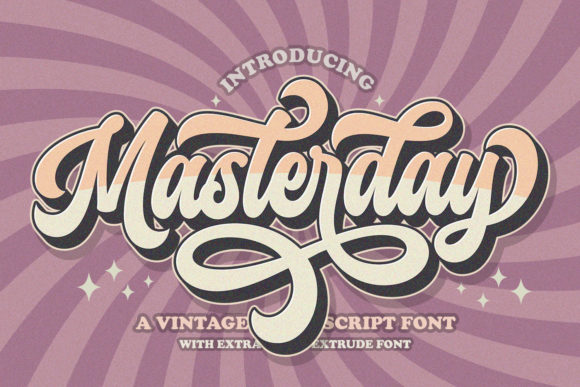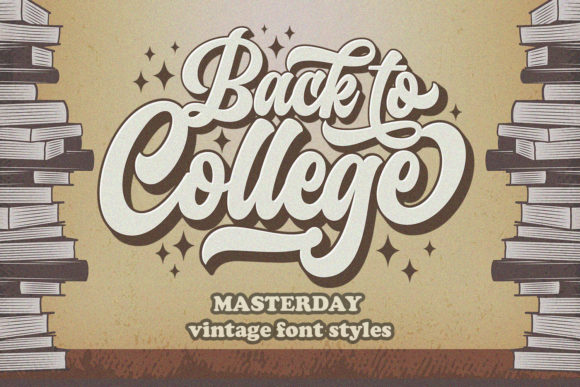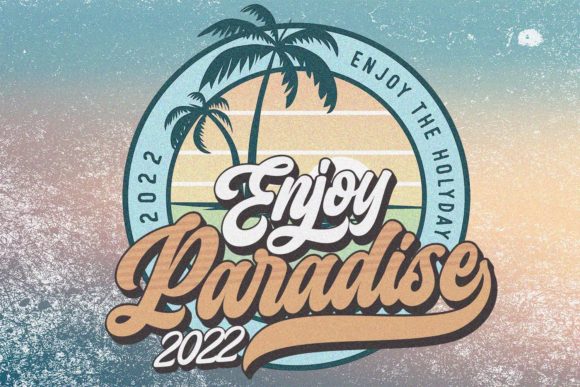
Masterday Font: A Ravishing Retro Handwritten Script for DIY & Cricut Projects!
About the Masterday Font
Welcome to the world of Masterday Font, a typeface that will inspire your next great project. Masterday is a stylish and retro handwritten font. Fall for its ravishing style and use it to create gorgeous designs. This font is PUA encoded which means you can access all glyphs and swashes with ease!
Masterday’s retro hand-written style is ideal for headlines, short text blocks on posters or packaging, and branding elements where a touch of vintage charm is desired. Its playful energy makes it perfect for projects related to fashion, food, or events with a nostalgic feel. However, its informal nature makes it unsuitable for body text or lengthy paragraphs, and its low readability would be problematic for UI applications.
Pairing Masterday with a clean sans-serif like Open Sans for body text creates a strong visual contrast, balancing the handwritten informality with crisp legibility. Alternatively, a classic serif like Garamond can add a touch of sophistication, while a geometric sans-serif like Montserrat provides a modern counterpoint.
The overall personality is best described as playful yet sophisticated; bold without being aggressive, and ultimately versatile within its stylistic niche.
Masterday Font Usage Examples
Masterday Font Example